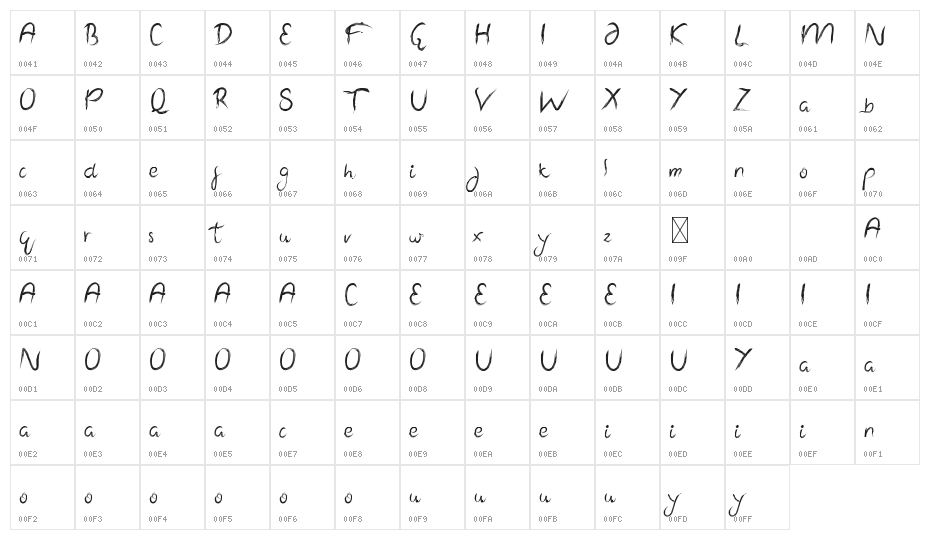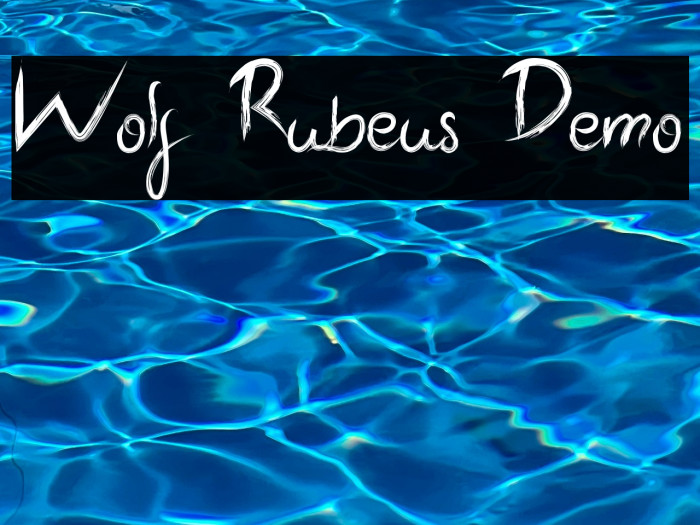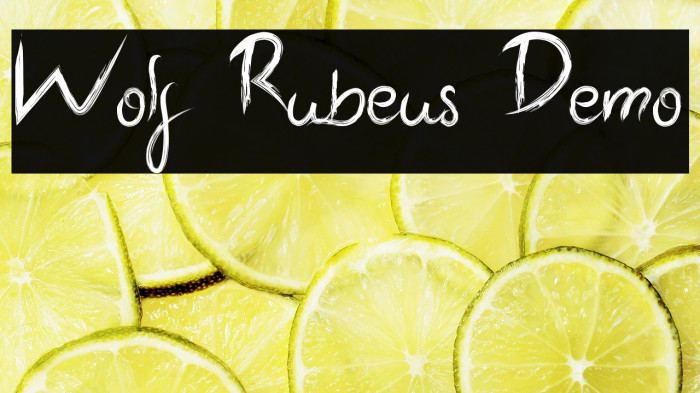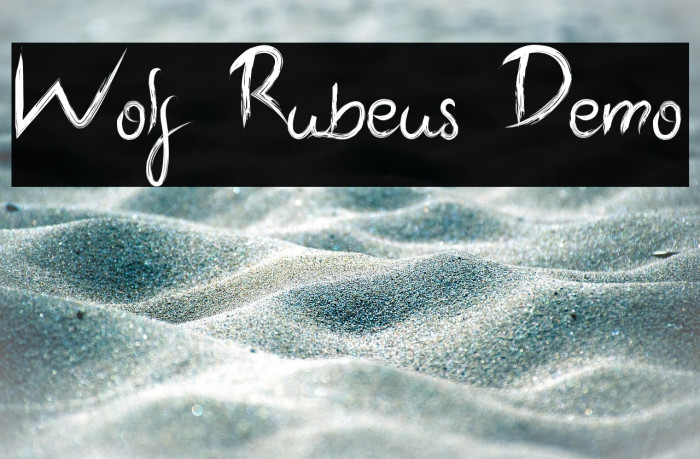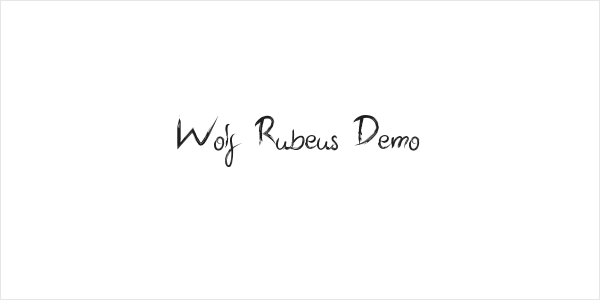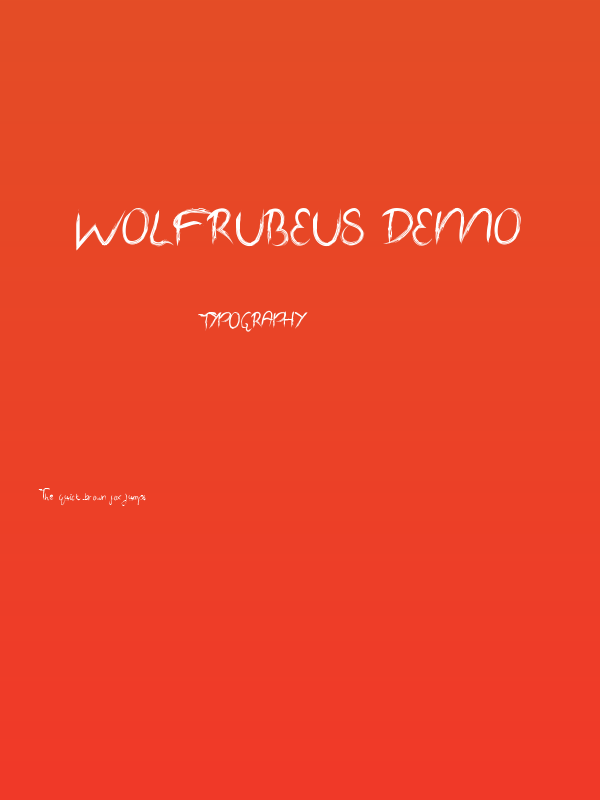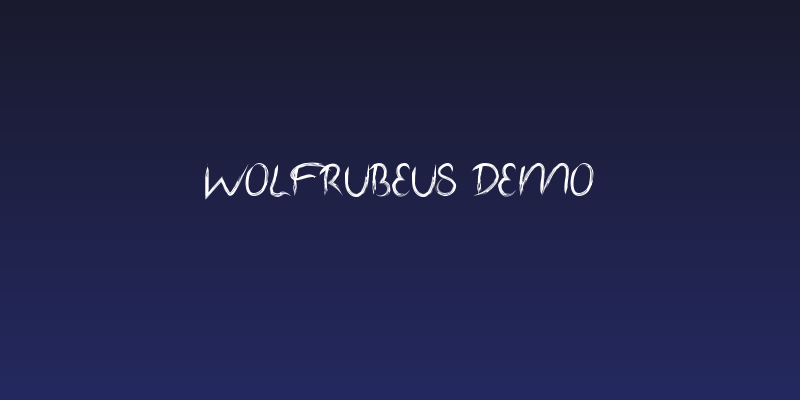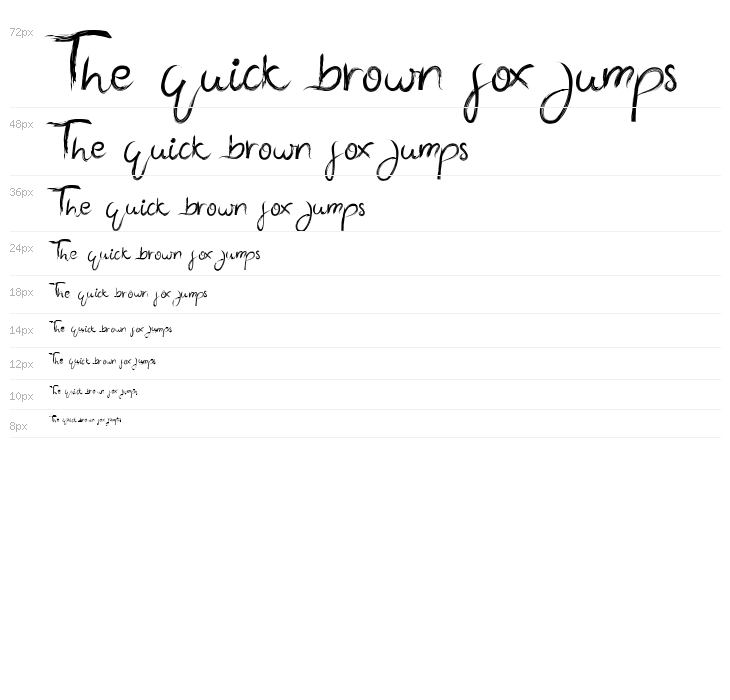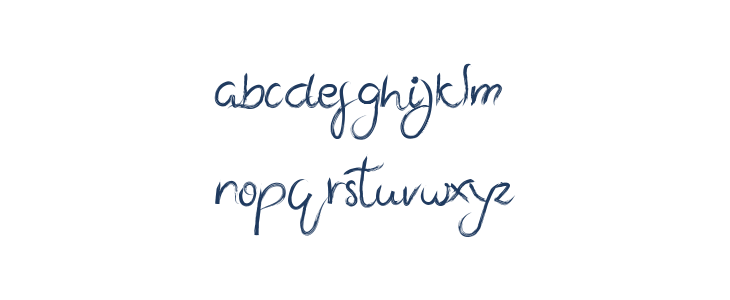
Wolf Rubeus Demo Font
Wolf Rubeus Demo Description
This font features a dynamic and energetic brush style, characterized by its rough, textured strokes that give it a wild and untamed appearance. The letters are crafted with a sense of movement and spontaneity, resembling hand-drawn calligraphy with a modern twist. The uppercase and lowercase letters maintain a consistent style, with varying stroke widths that add to the font's expressive nature. The numbers and special characters are equally stylized, ensuring a cohesive look across all text elements. This font's unique design makes it stand out, offering a bold statement in any project.
| Overall Style | Modern, Artistic |
| Proposed Projects | Ideal for projects that require a bold and artistic touch, such as posters, album covers, branding, and creative advertising. |